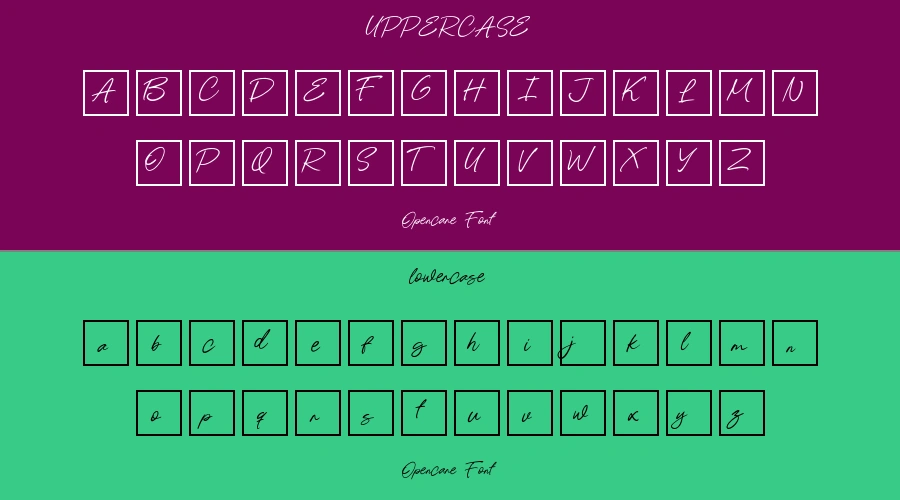
About Opencare Font
Opencare Font stands out for its distinctive combination of distinctive details and durability. Ideal for engineering drawings, it provides the functionality and artistic merit that professional projects demand. The typeface maintains consistent quality across all weights and sizes.
Key features include refined harmonious shapes and practical proportional figures, enhancing typographic expression. In specification lists applications, Opencare Font demonstrates exceptional texture integration. The terminal style and subtle details contribute to its distinctive character and professional appeal.